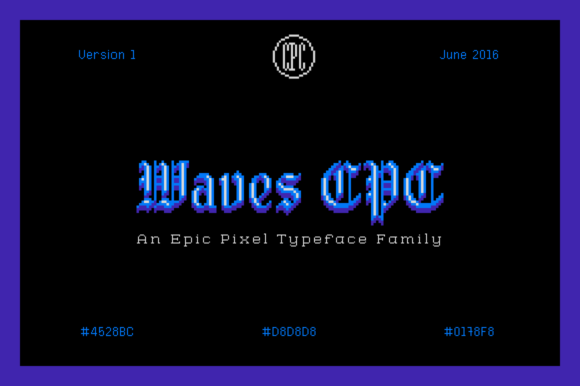
Step into a world of captivating aesthetics with Waves CPC Font, the pixel display font that ignites imagination and transforms your designs into masterpieces. Created by the visionary minds at CPC Type, Waves CPC Font is not just a collection of letters and symbols; it's an artistic gateway to a realm of limitless creativity.
Journey through the pulsating rhythm of the 8-bit era, where every pixel holds a story, and every curve echoes the vibrant energy of classic video games. With Waves CPC Font, you're not just downloading a font; you're acquiring a time machine, a portal to a world where nostalgia and innovation collide.
Embark on a quest for individuality, where your designs transcend the ordinary and become emblems of your unique style. Whether you're crafting headlines that demand attention, crafting logos that exude boldness, or designing monograms that whisper elegance, Waves CPC Font is your steadfast companion.
Picture it: a poster for an adrenaline-fueled sporting event, where the letters dance across the page like athletes in motion. The sharp edges and dynamic curves of Waves CPC Font capture the essence of competition, urging spectators to witness the spectacle.
Envision a sleek and futuristic automotive poster, where the font becomes an extension of the sleek lines and curves of the car. Waves CPC Font's pixelated charm evokes a sense of nostalgia, while its modern aesthetic propels your design into the future.
Imagine a logo that embodies the spirit of your brand, a symbol that resonates with your audience. With Waves CPC Font's versatility, you can craft a monogram that radiates timeless sophistication, a visual representation of your company's legacy.
With Waves CPC Font, you're not just downloading a font; you're embracing a legacy, a tribute to the golden age of video games and a testament to the enduring power of pixel art. It's a font that breathes life into your creations, a font that turns your designs into unforgettable experiences.
Join the ranks of creative visionaries who have harnessed the power of Waves CPC Font to elevate their designs to new heights. Let your imagination soar, let your creativity flow, and let Waves CPC Font guide you on a journey of visual enchantment.